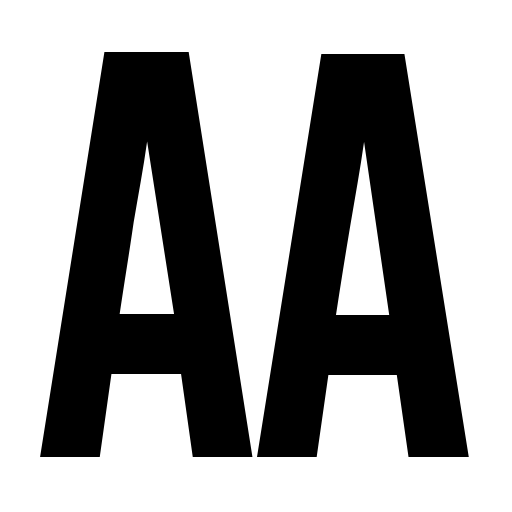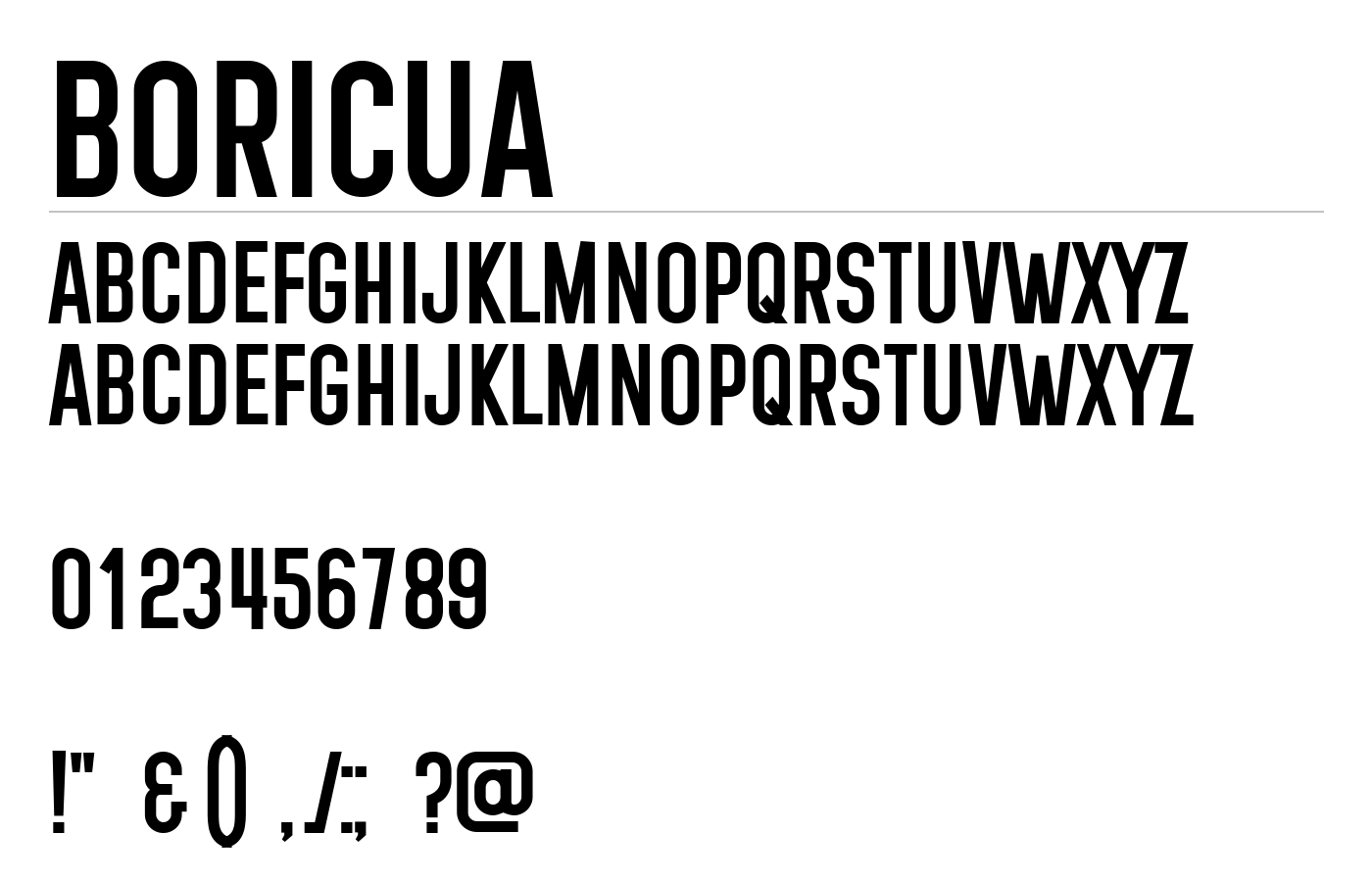
Boricua is a bold, condensed sans serif font with a strong vertical emphasis and uniform stroke weight, giving it a modern and assertive appearance. Its tall, narrow letterforms with minimal contrast and smooth, geometric edges make it ideal for impactful headlines, branding, and designs that require a confident, contemporary feel. This font works best in settings where clear, bold communication is key, such as posters, logos, and editorial headlines.
Boricua Font
About Boricua Font